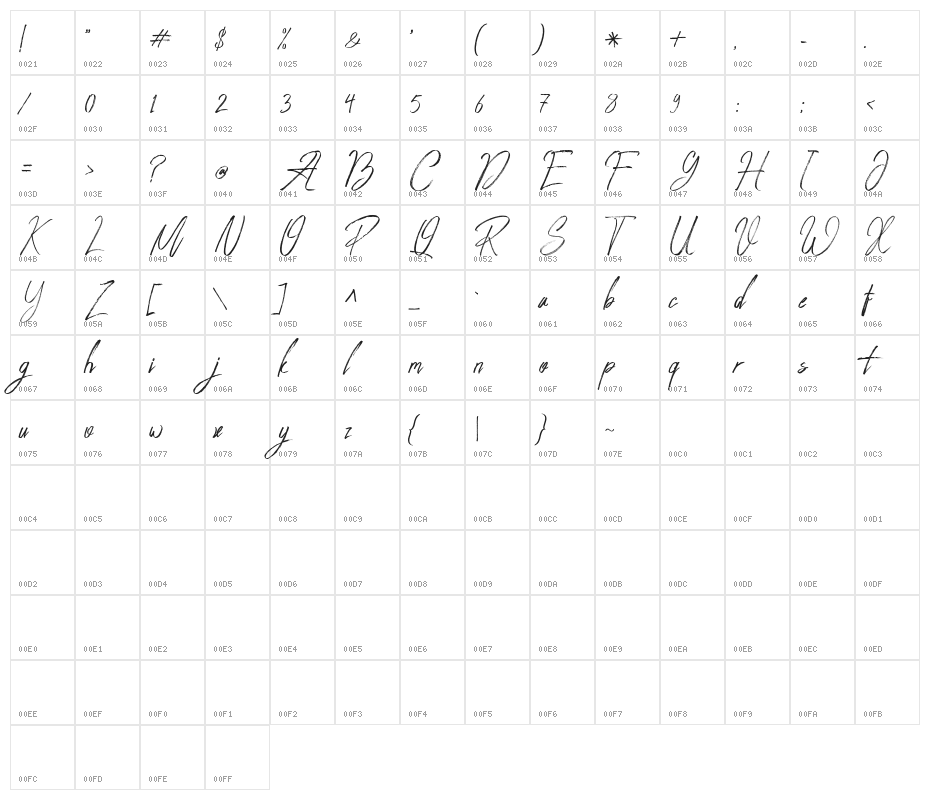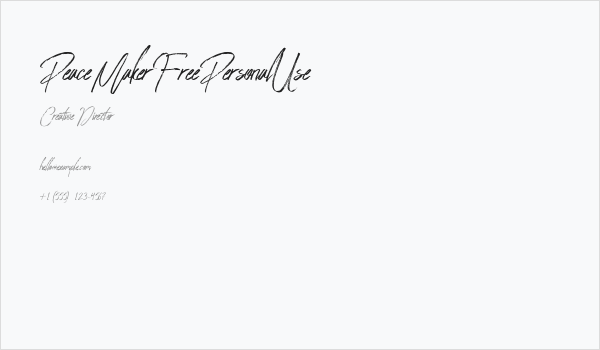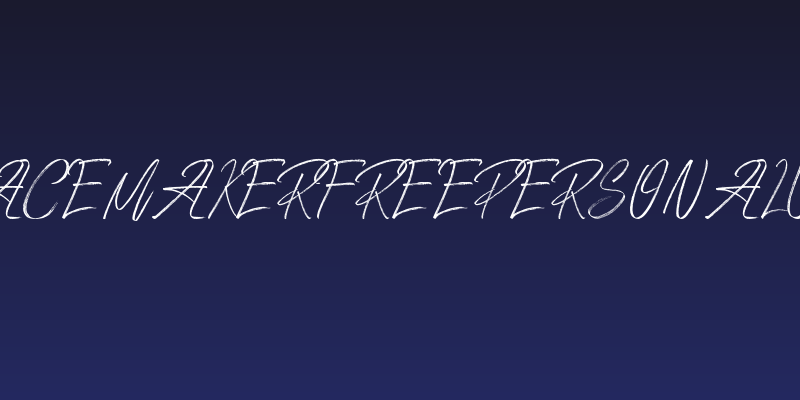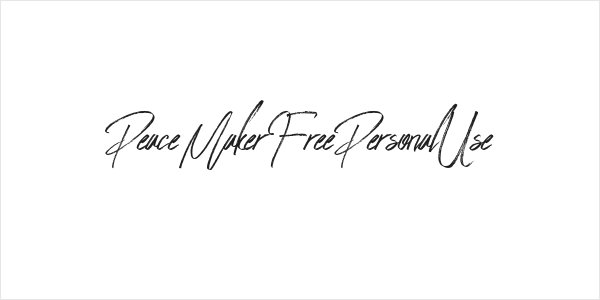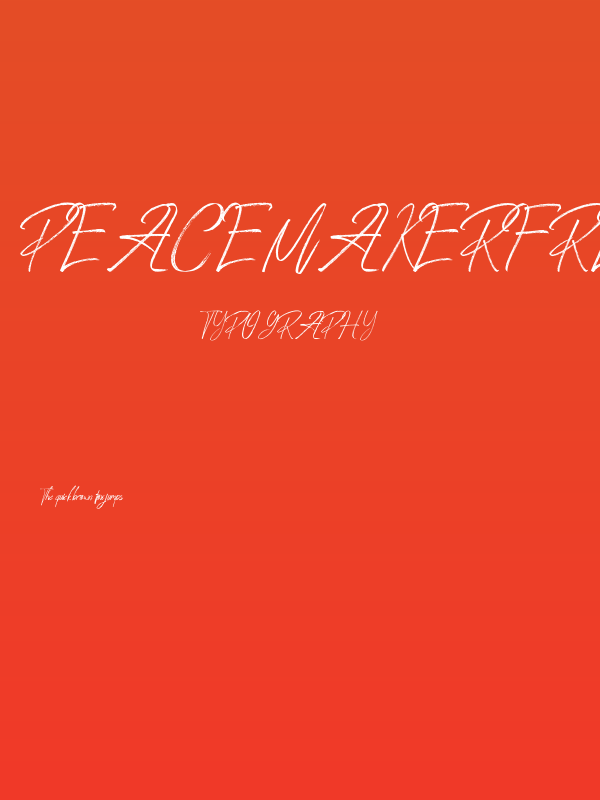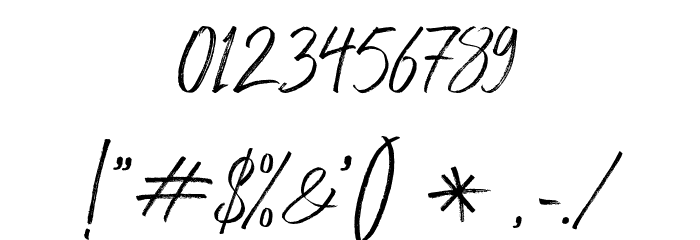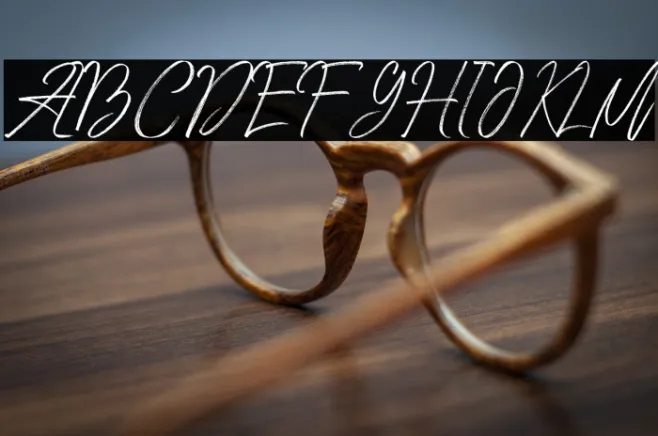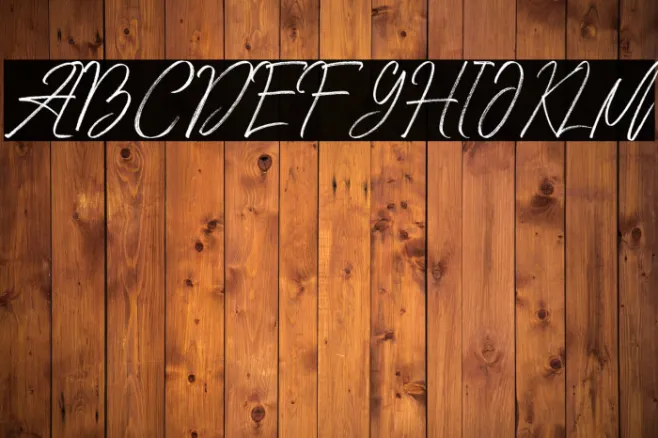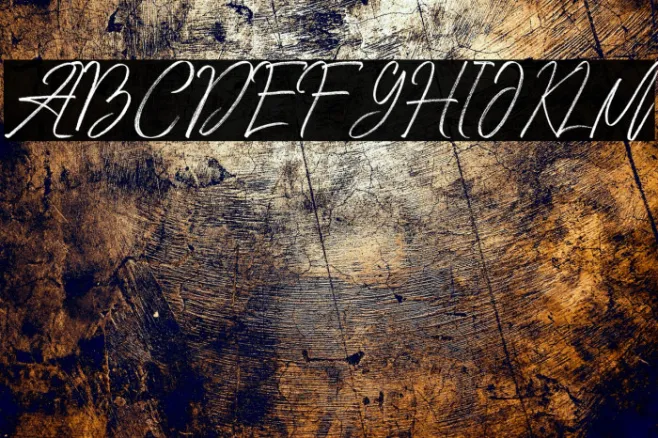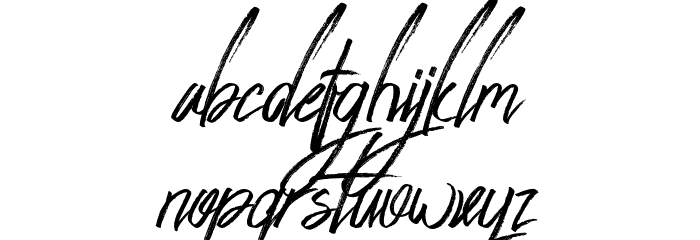
PeaceMakerFreePersonalUse Font
PeaceMakerFreePersonalUse Description
This font exhibits a dynamic and fluid script style, characterized by its elegant, flowing lines and cursive letterforms. The uppercase letters are tall and slightly slanted, with a distinctive flair that adds a sense of movement and sophistication. The lowercase letters maintain a consistent flow, with smooth connections between characters, enhancing the handwritten aesthetic. The numerals are designed to complement the script style, featuring similar curves and angles. Special characters are integrated seamlessly, maintaining the overall cohesive look. This font is ideal for projects that require a personal and artistic touch, such as invitations, branding, and creative design work.
| Use Case | Logos, Invitations, Creative Design |
| Proposed Projects | Ideal for invitations, branding, creative design work, and any project needing a personal touch. |